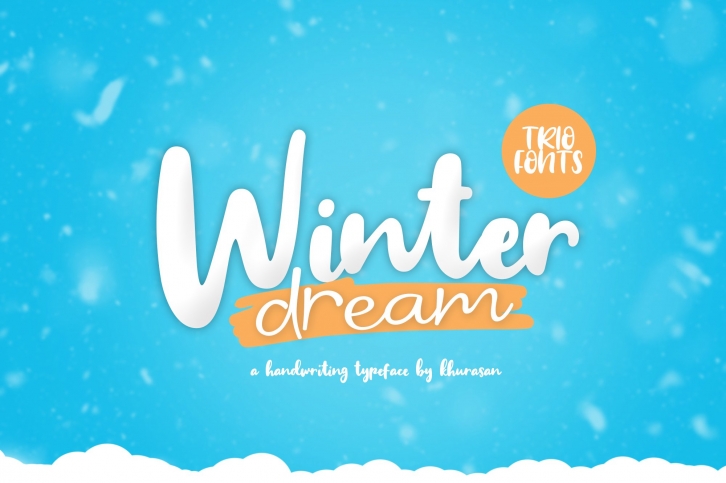
Introducing the Winter Dream Trio Font with two different style, bold and thin and bonus Big Snow script font. You can combine to get amazing results. Winter Dream it’s perfect for namecard, poster, logo, magazine, cover, banner, tshirt and headers, or even large-scale artwork..